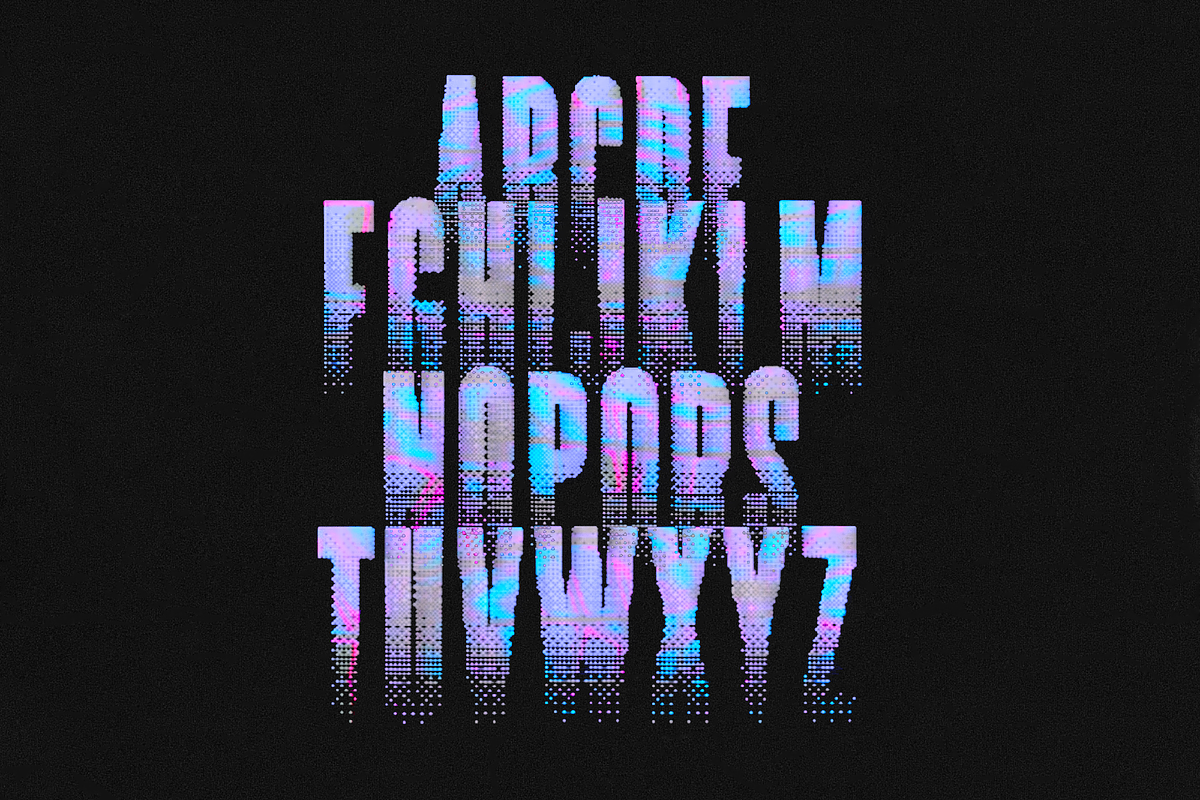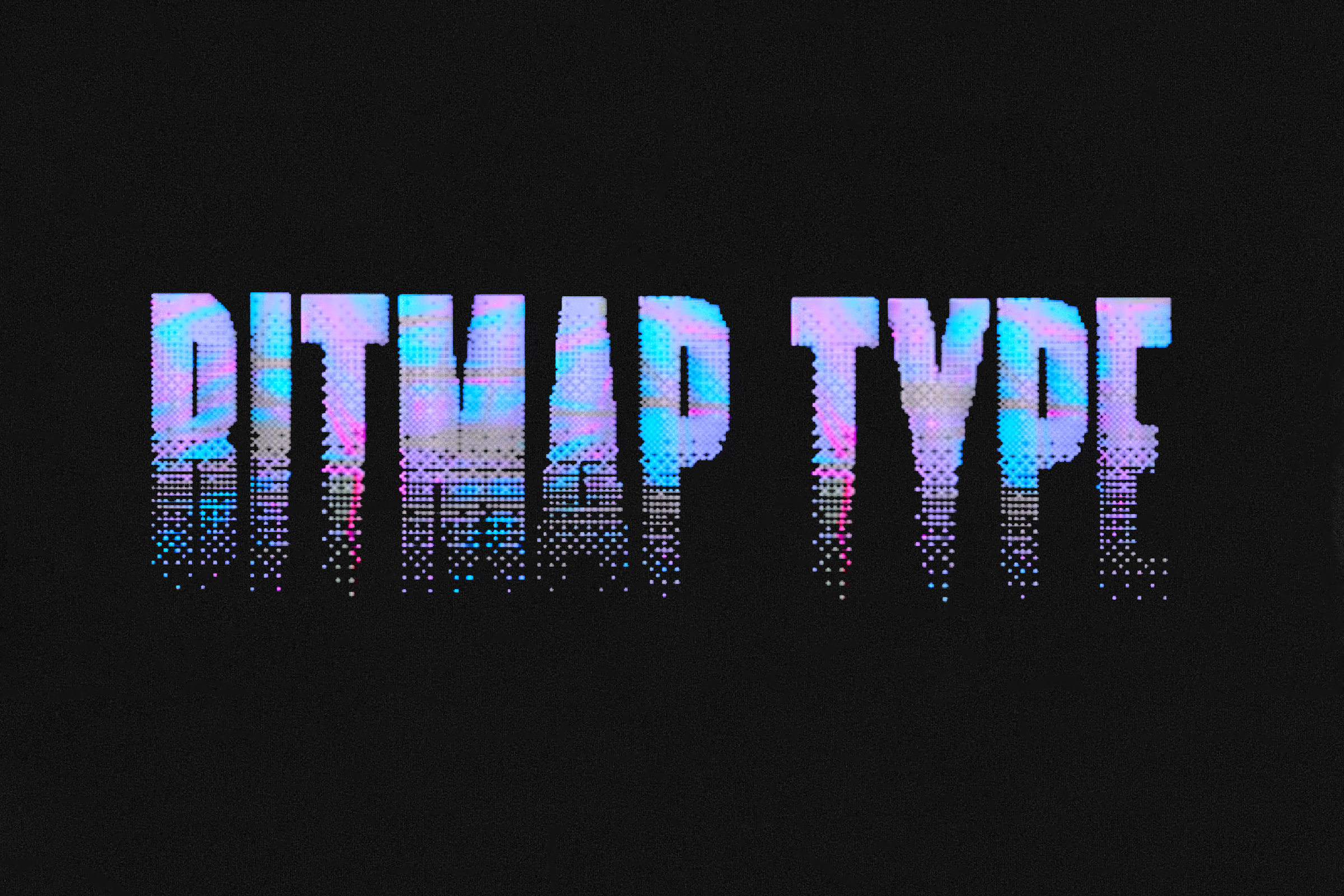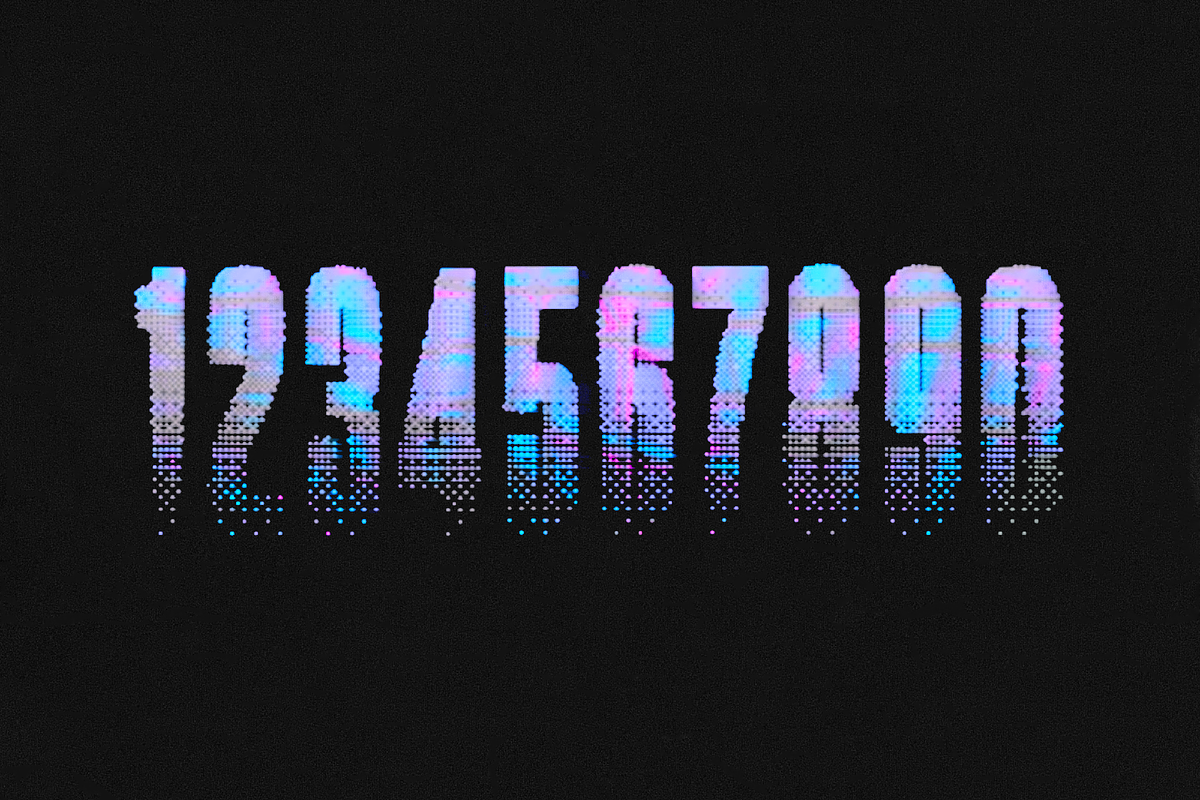
BITMAP TYPE - RETRO VHS TYPEFACE
Introducing ‘BITMAP TYPE’. A brand new pixelated font from Nickjaykdesign.
This is not a standard installable font file - it is a set of stylized image files for each letter, ready to be dropped into any photo editing app